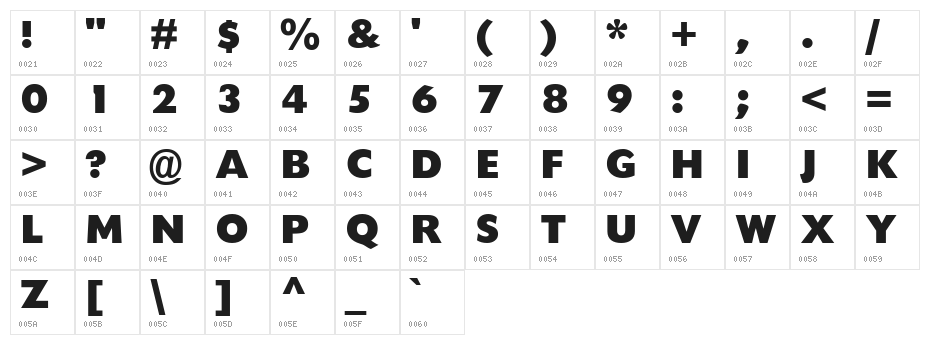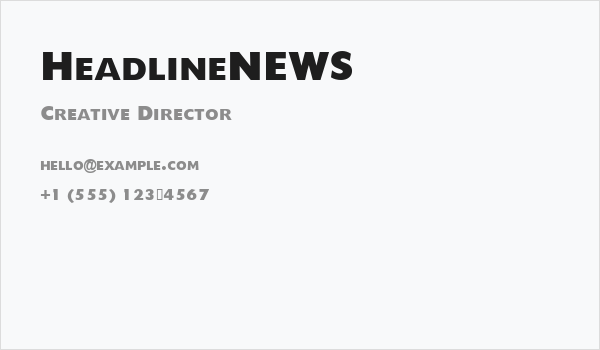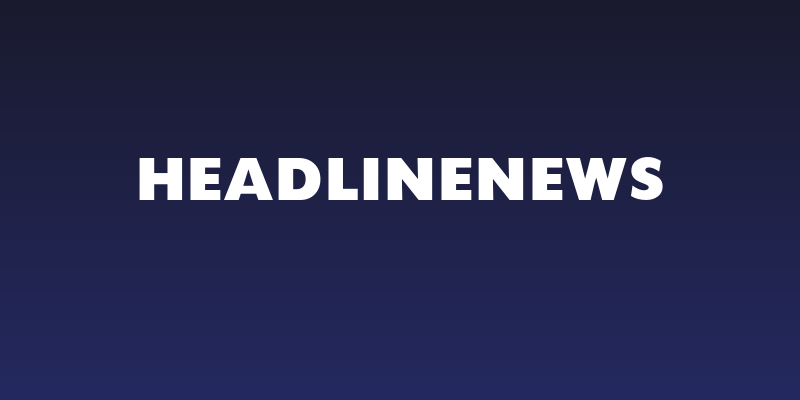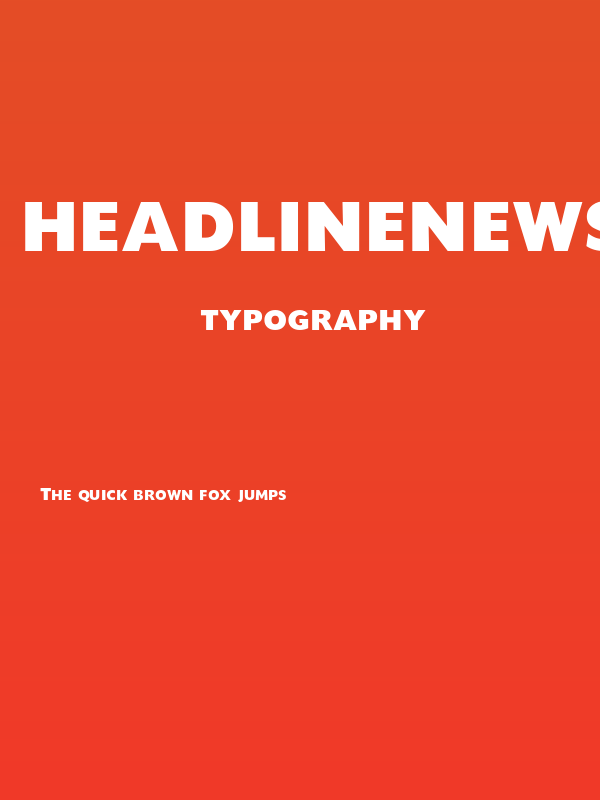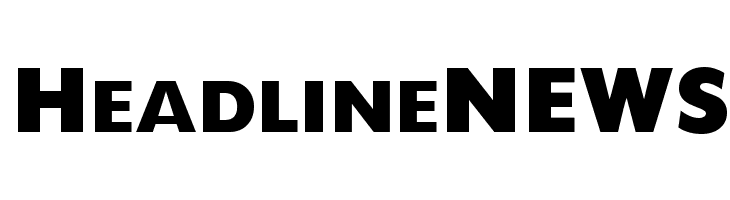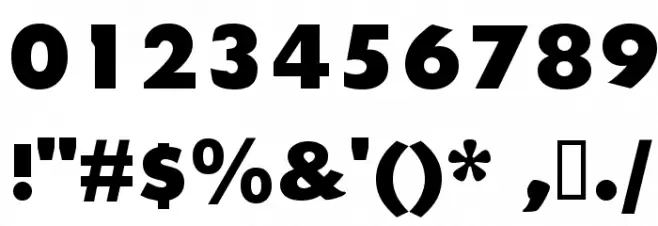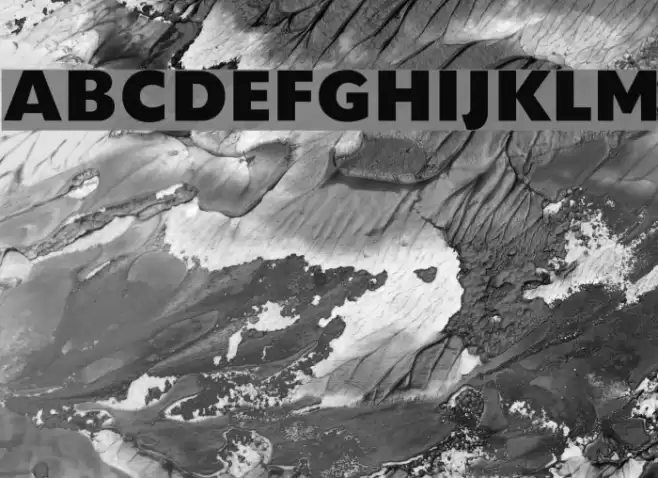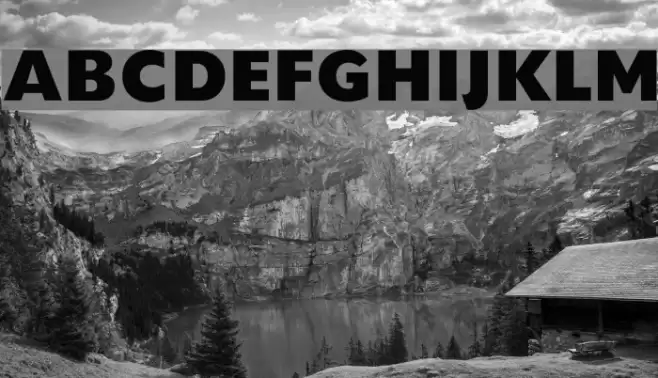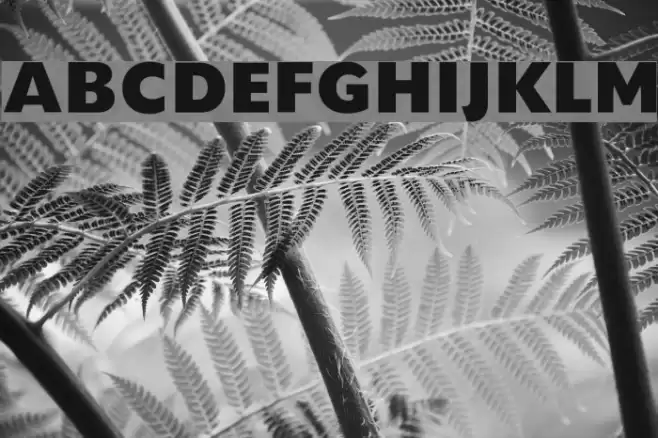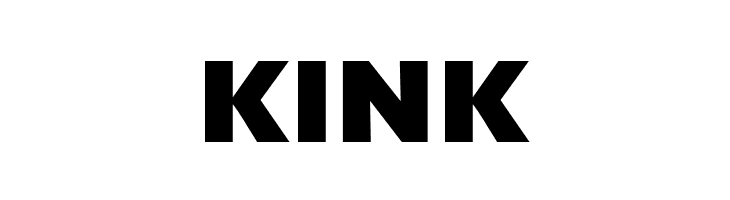
HeadlineNEWS Font
HeadlineNEWS Description
This bold and impactful font features thick, uniform strokes that convey a sense of strength and modernity. The uppercase letters are robust and slightly condensed, making them ideal for attention-grabbing headlines. The numbers and special characters maintain the same boldness, ensuring consistency across different uses. The font's clean lines and lack of serifs give it a contemporary feel, while the even spacing between characters enhances readability. Its design is straightforward yet powerful, making it suitable for various applications where clarity and emphasis are required.
| Proposed Projects | Ideal for headlines, posters, branding materials, and advertising campaigns. |